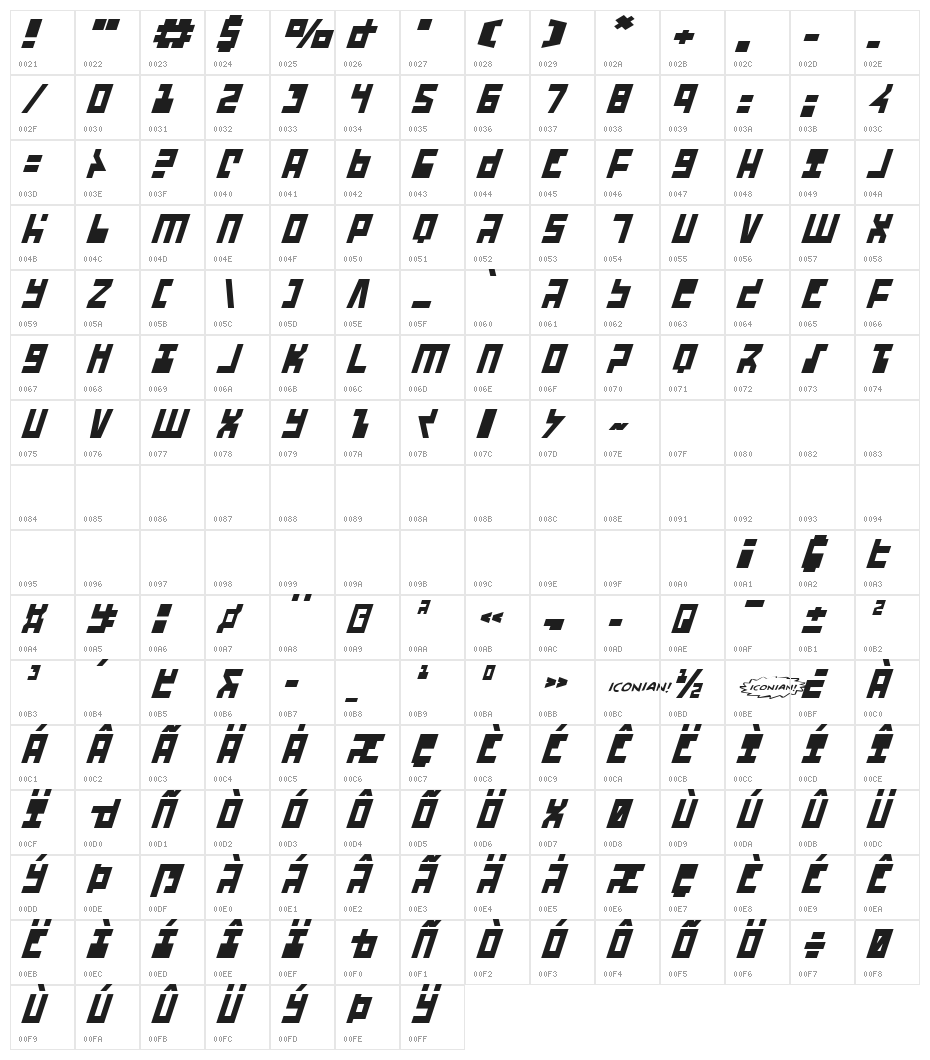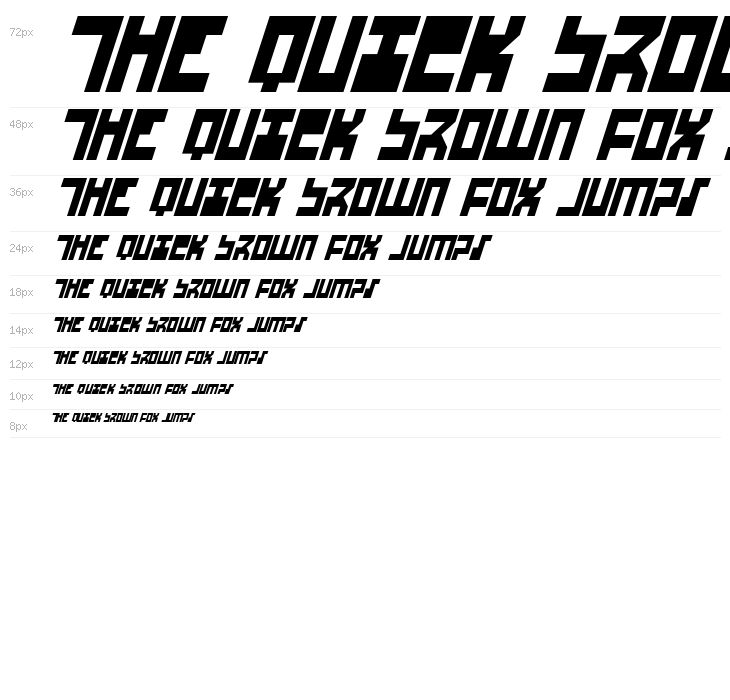
UFO Hunter Italic Font
UFO Hunter Italic Description
This font features a bold, italicized style with a futuristic and angular design. The characters are sharply cut with a distinct slant, giving a sense of motion and speed. The uppercase and lowercase letters maintain a consistent geometric form, while the numbers and special characters follow the same angular theme. The font's thick strokes and sharp edges make it highly legible and impactful, suitable for attention-grabbing designs. Its unique style is reminiscent of sci-fi themes, making it ideal for projects that require a modern and edgy look.
| Proposed Projects | Ideal for sci-fi themed posters, video game titles, futuristic branding, and tech-related advertisements. |